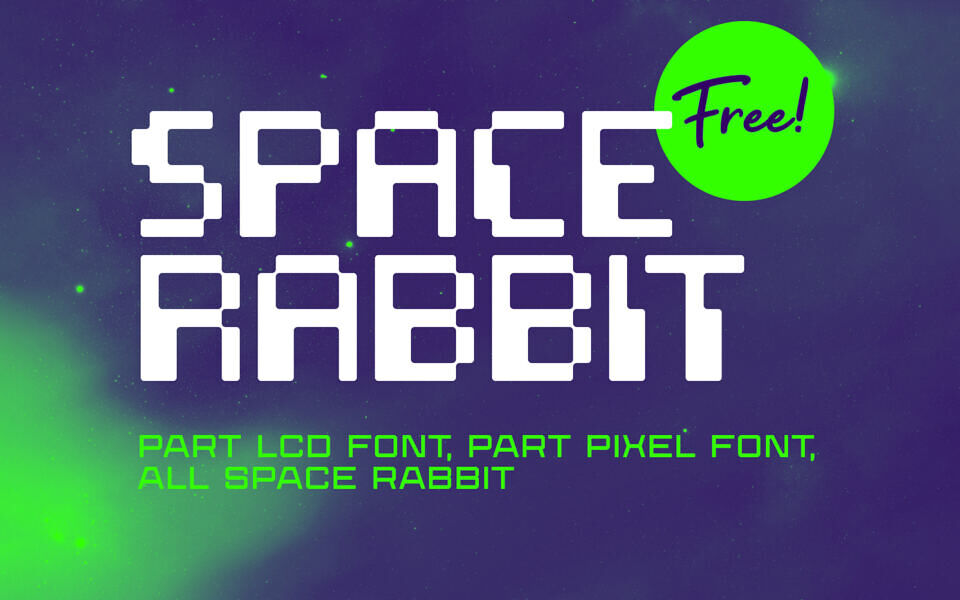
Space Rabbit Font
Space Rabbit is a spacey typeface inspired by the on-screen text in the classic Bucky O’Hare video game for NES and designed by me—available to download and use free!